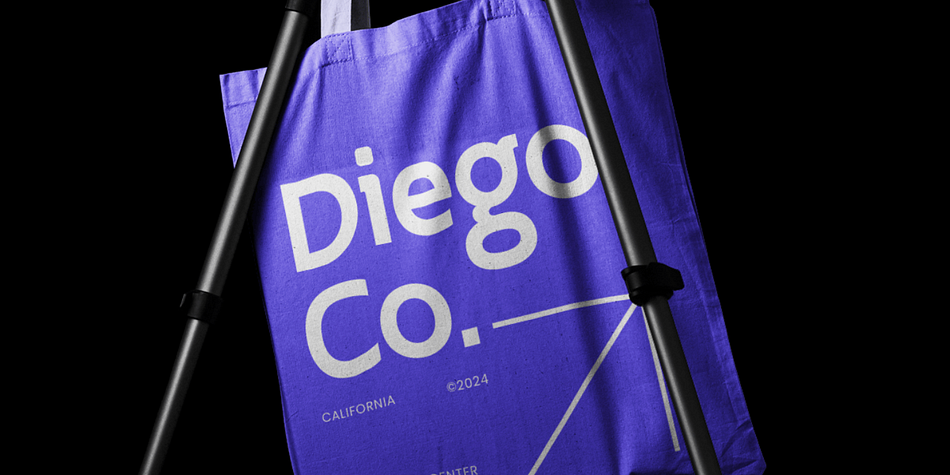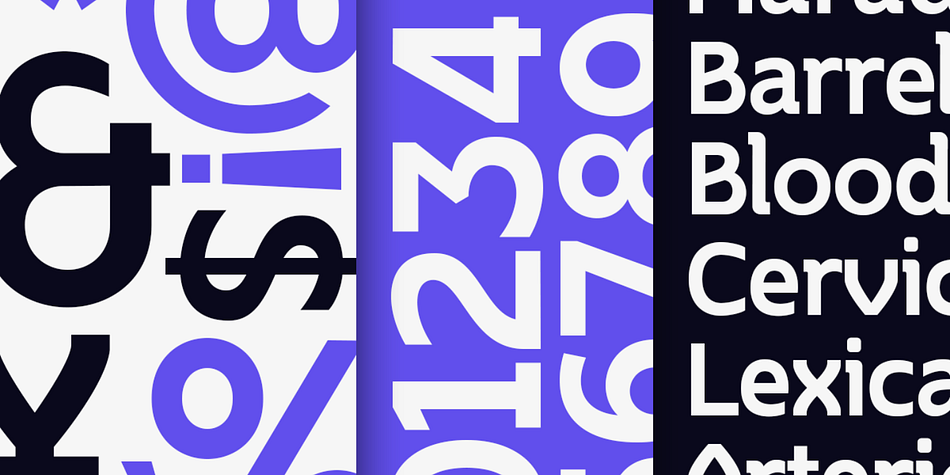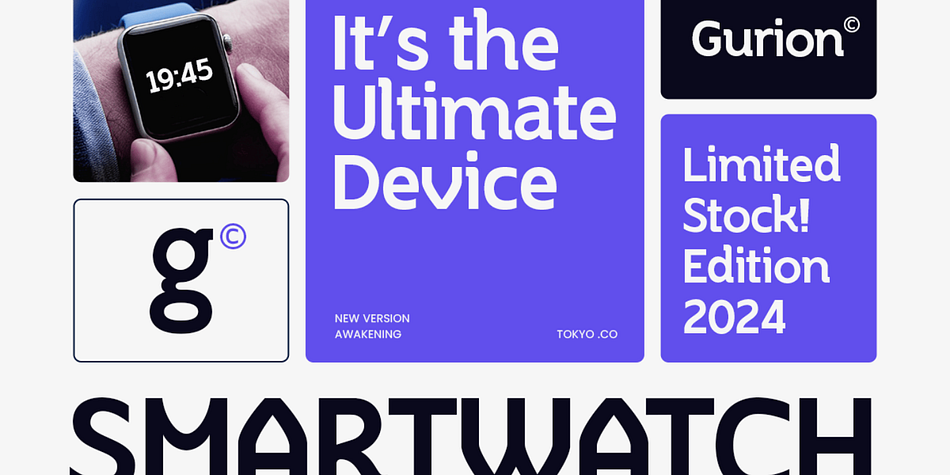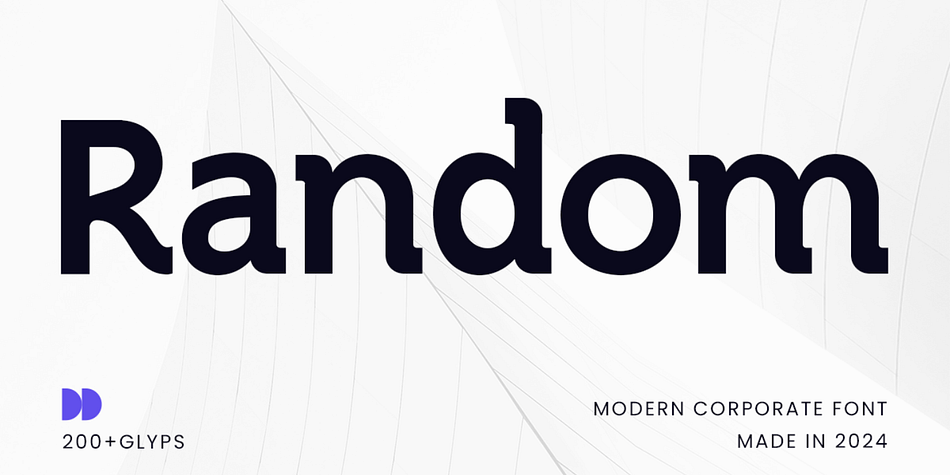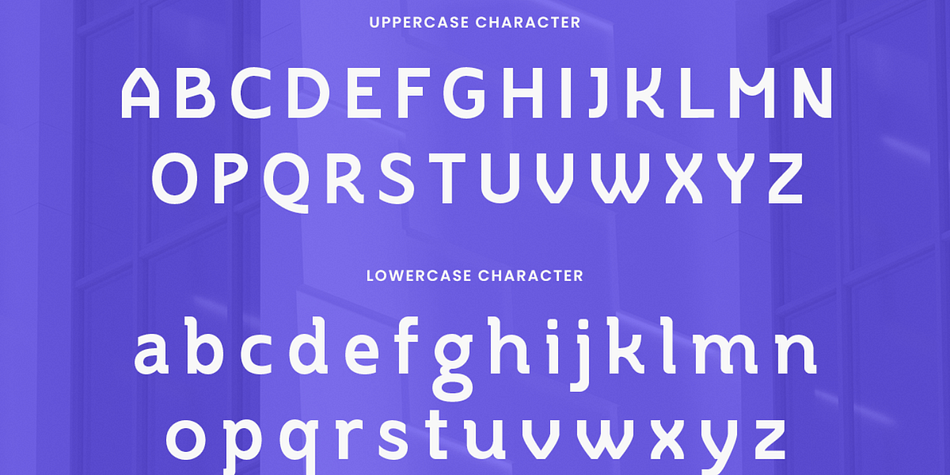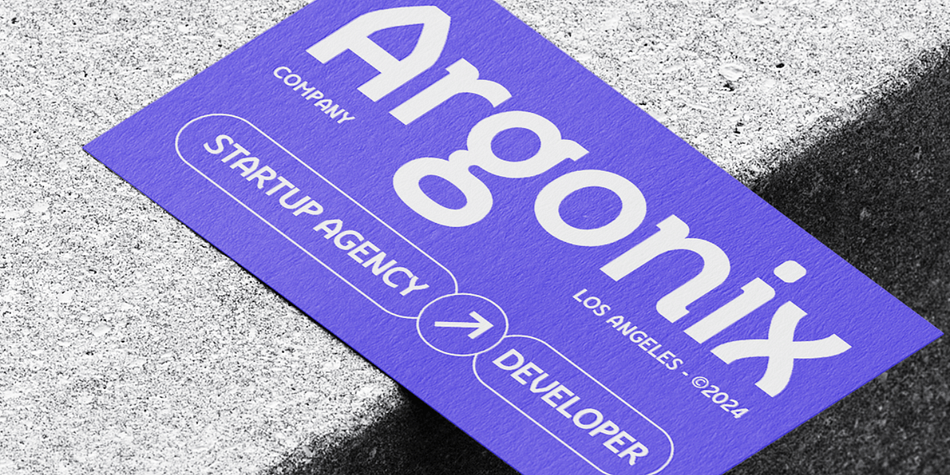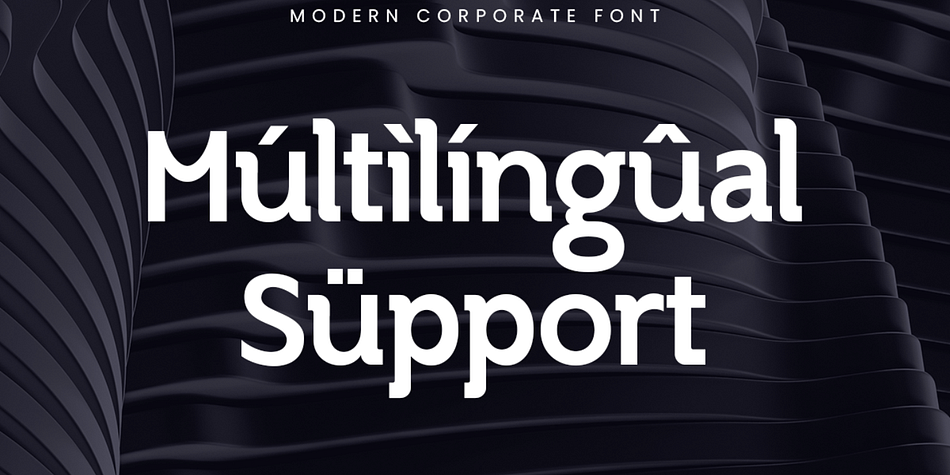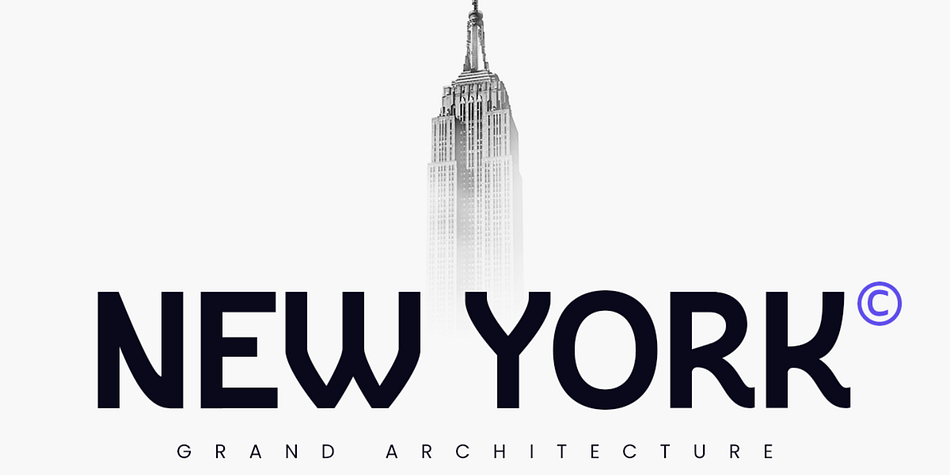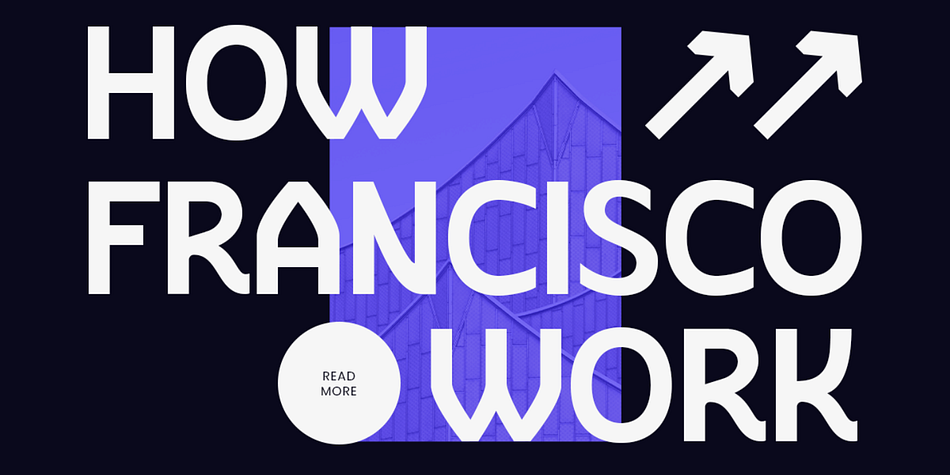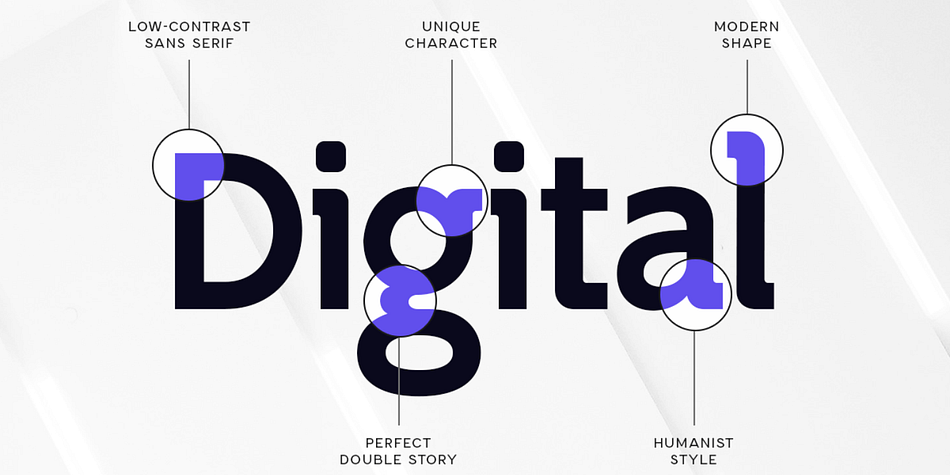
Random is a modern corporate font designed to give your business and branding materials a professional, clean look. Its sleek and contemporary style makes it perfect for business presentations, high-impact logos, and marketing collateral. Random’s balanced design and precise details ensure readability and visual appeal across various media.
Ideal for corporate reports, website headers, and modern stationery, Random brings a touch of sophistication to your projects. Its polished letterforms add a sense of authority and trustworthiness, essential for corporate communications and professional settings. Make a lasting impression with this versatile and refined typeface.
With Random, you can elevate your brand’s image and convey a strong, modern identity. This font’s versatility and high-quality craftsmanship make it a must-have for any designer looking to create impactful, corporate-friendly designs.
Random Modern Corporate Font Features:
Professional and Sleek Characters Ready
Unique Punctuation, Number, and Symbol
Uppercase and Lowercase
Opentype Features
Multilingual Characters available for:
Afrikaans, Albanian, Asu, Basque, Bemba, Bena, Breton, Chiga, Cornish, Dutch, English, Estonian, Filipino, Finnish, Friulian, Galician, German, Gusii, Indonesian, Irish, Italian, Kabuverdianu, Kalenjin, Kinyarwanda, Luo, Luxembourgish, Luyia, Machame, Makhuwa-Meetto, Makonde, Malagasy, Manx, Morisyen, North Ndebele, Nyankole, Oromo, Portuguese, Quechua, Romansh, Rombo, Rundi, Rwa, Samburu, Sango, Sangu, Scottish Gaelic, Sena, Shambala, Shona, Soga, Somali, Spanish, Swahili, Swedish, Swiss.